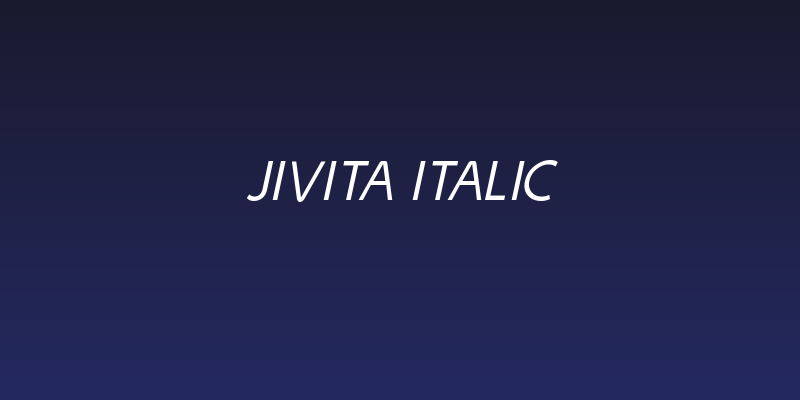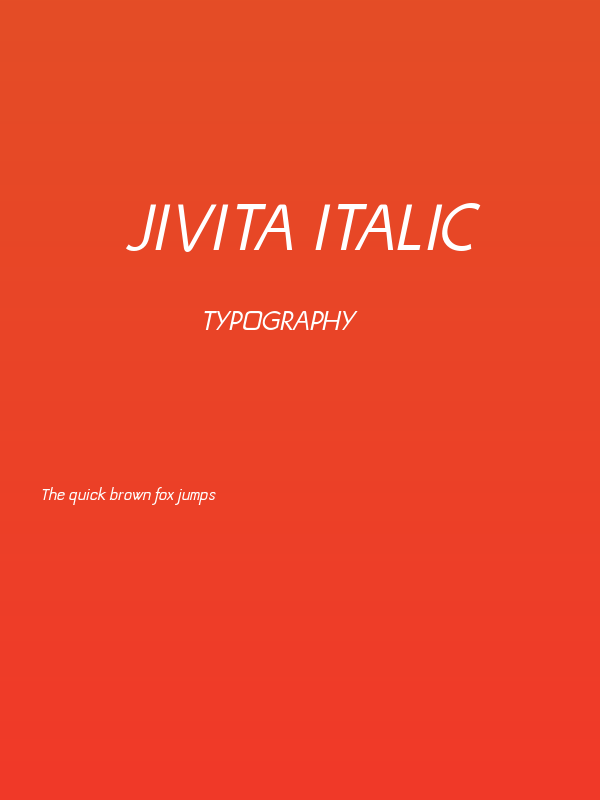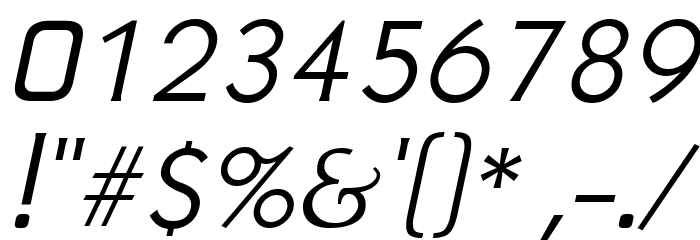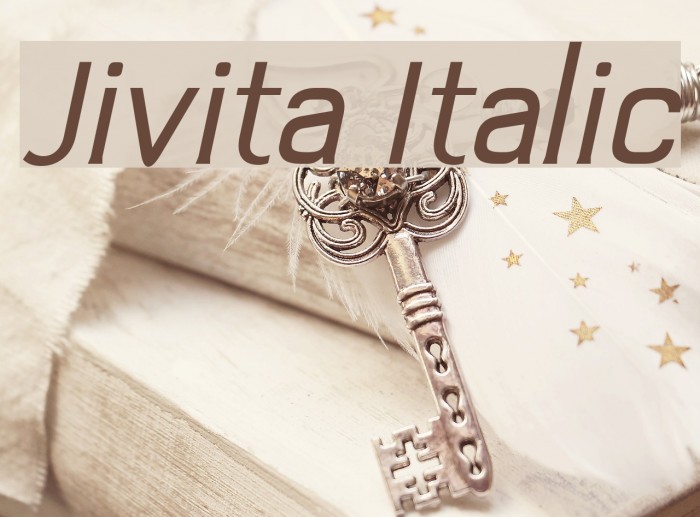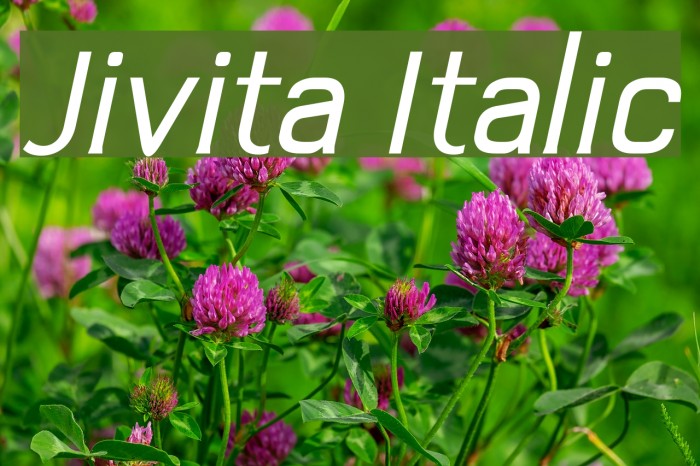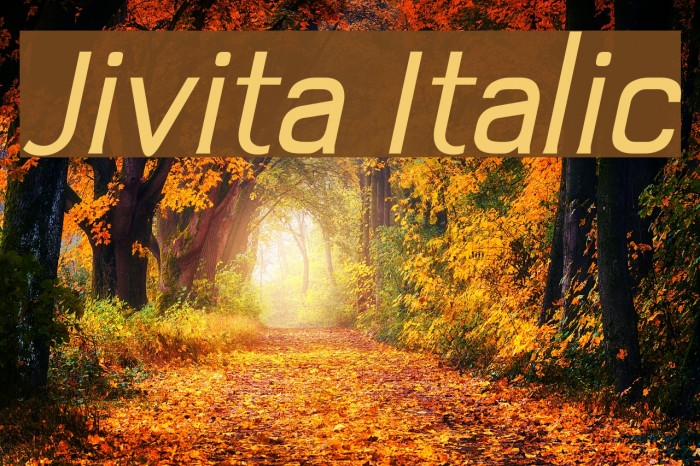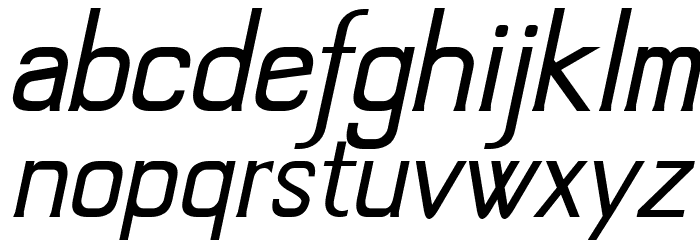
Jivita Italic Font
Jivita Italic Description
This font features a sleek and modern design with a distinct italic slant, giving it a dynamic and forward-moving appearance. The characters are well-proportioned with a consistent stroke width, providing a clean and professional look. The uppercase and lowercase letters maintain a harmonious balance, while the numerals are clear and easily readable. The special characters are designed to complement the overall style, ensuring versatility in various design contexts. This font's aesthetic is both contemporary and functional, making it suitable for a wide range of applications.
| Use Case | Headlines, Body text, Logos |
| Proposed Projects | Ideal for branding, advertising, digital media, and editorial design projects. |